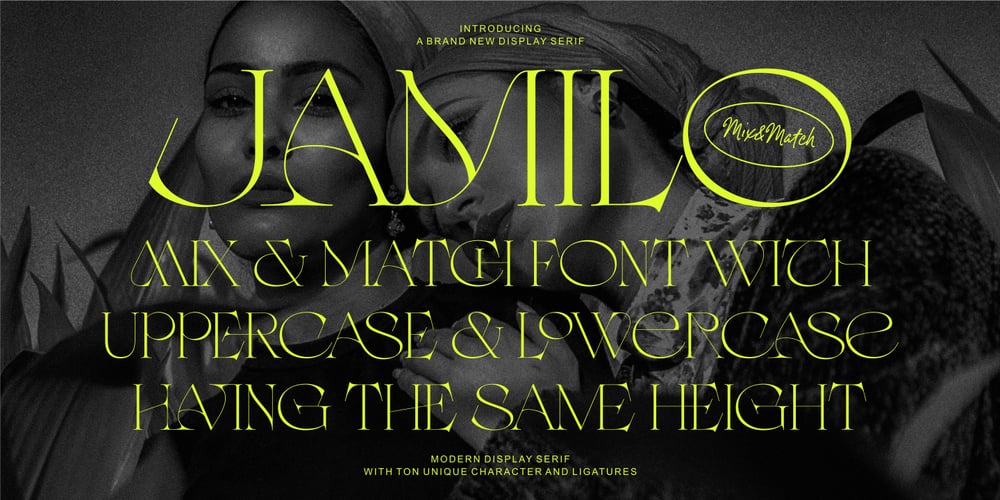
Jamilo
Jamilo font
Jamilo Font Family was designed by Nurul Fajri Redy and published by Redy Studio. Jamilo contains 1 styles and family package options. Introducing Jamilo, a stylist serif display font designed with only capital letters. Its versatile characters allow you to mix & match with easily, creating eye-catching designs for a variety of projects. With its modern and clean design, adding a touch of elegance and neatness to various projects. Perfect for logos, headlines, branding, websites, social media quotes, and more.These letters are embedded into the font file and easily accessible in programs such as photoshop and illustrator. You can access these in more basic design programs but you will need to use your character map by using the opentype feature.Jamilo Font Features: Full Set of standard alphabet and punctuation Ligatures PUA Encoded – no special software needed to access extra characters Multilingual Supports